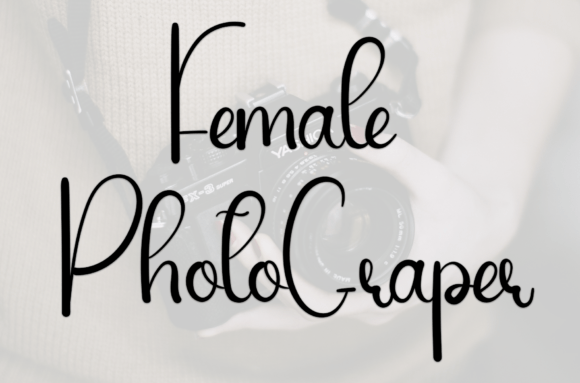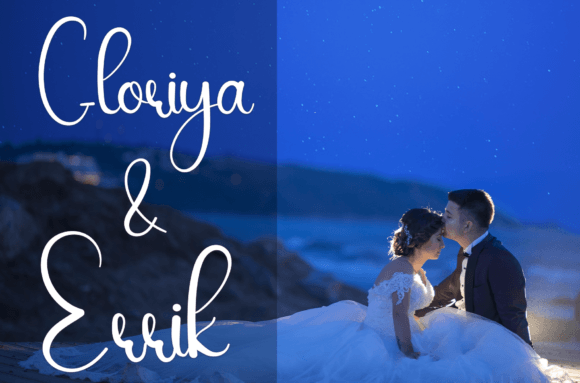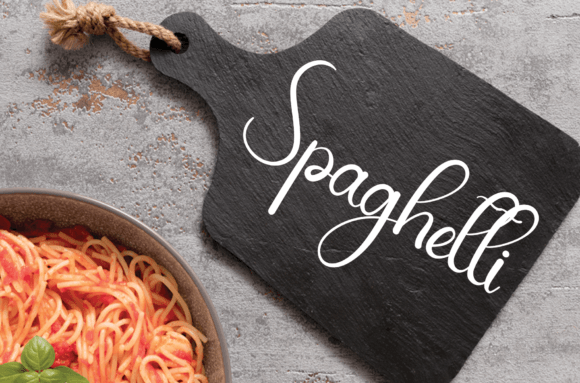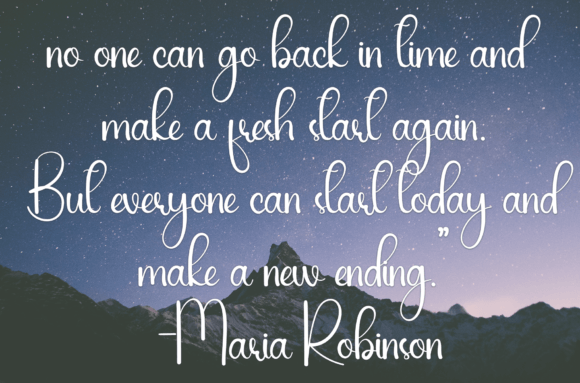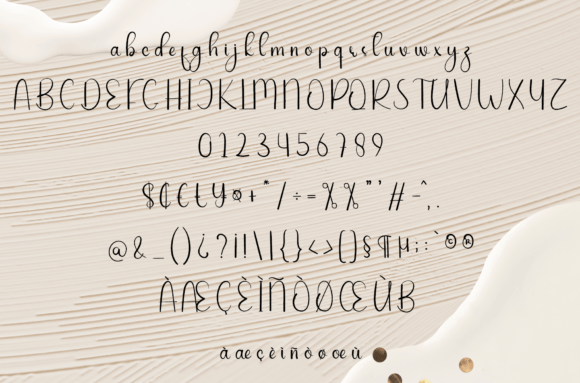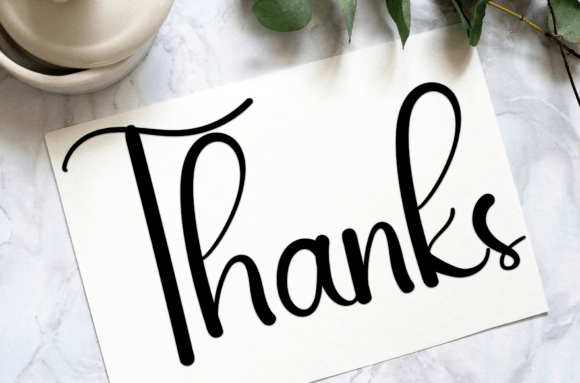
Introduction to Simbol Font
Have you ever found yourself rummaging through your design files, desperate for the perfect font to give your creative project that extra oomph? I know I have! There’s something magical about stumbling upon a font that perfectly captures the essence of your idea, and that’s exactly what happened when I discovered the Simbol Font.
This lovely handwritten font is more than just a pretty face – it’s a valuable resource for designers looking to add a touch of personality to their designs. With its transparent background and high-quality design, the Simbol Font is perfect for creating stunning visuals that pop. Whether you’re working on a wedding invitation, a card, or any other design that needs a lovely touch, the Simbol Font is sure to impress.
Key Features of Simbol Font
- Font size: scalable, with a recommended minimum size of 12pt for optimal readability.
- Resolution: 300 DPI, suitable for print and digital use.
- Unique characteristics: a modern, minimalist design with clean lines and a sleek aesthetic.
- Perfect for designers, artists, and creatives looking for a high-quality, free design resource.
- Comes with a comprehensive character set, including uppercase and lowercase letters, numbers, and punctuation marks.
Honest Review: Simbol Font
As a designer, I’m always on the lookout for high-quality design resources to elevate my creative projects. Recently, I stumbled upon the Simbol Font, and I’m excited to share my thoughts on this free download.
What works well: ✨ The Simbol Font offers a unique and modern aesthetic that can add a touch of sophistication to any design. The font is highly versatile and can be used for a variety of creative projects, from logos to editorial content.
Some notable features include:
- Extensive character set, including Latin, Cyrillic, and Greek alphabets
- Support for transparent backgrounds, making it ideal for creative projects with complex designs
- High-quality glyphs and subtle variations in weight and style
Overall, I’m impressed with the Simbol Font’s design and functionality. While it may have some limitations, it’s a great resource for designers on a budget or those looking to add some visual interest to their projects.
Simbol Font
Simbol Font is a high-quality design resource that can elevate your creative project to the next level. With its unique and modern style, this font is perfect for any design enthusiast looking to add a touch of sophistication to their work.
Transparent Background
One of the key features of Simbol Font is its transparent background, making it easy to overlay on any image or design element. This feature is especially useful when working on projects that require a high level of customization.
Tips for Getting the Most Out of Simbol Font
Here are a few tips for getting the most out of Simbol Font:
Experiment with different font sizes and styles to create a unique and eye-catching design.
Use the transparent background feature to overlay the font on any image or design element.
Combine Simbol Font with other design elements, such as graphics and images, to create a visually appealing design.
Simbol Font is perfect for a variety of design projects, including:
Business cards and marketing materials.
Website headers and footers.
Social media graphics and ads.
Q: Does Simbol Font support a transparent background?
Yes, Simbol Font is designed to be used with a transparent background, making it perfect for use in creative projects that require a high level of customization. You can easily adjust the background color or use a transparent background to make your design stand out.